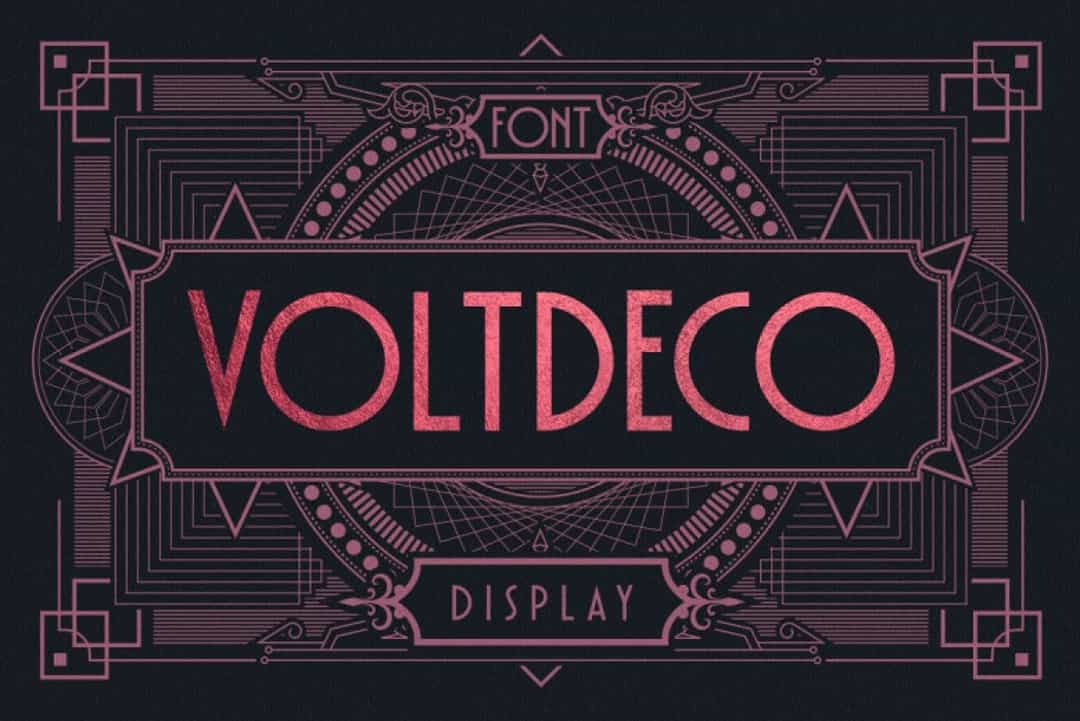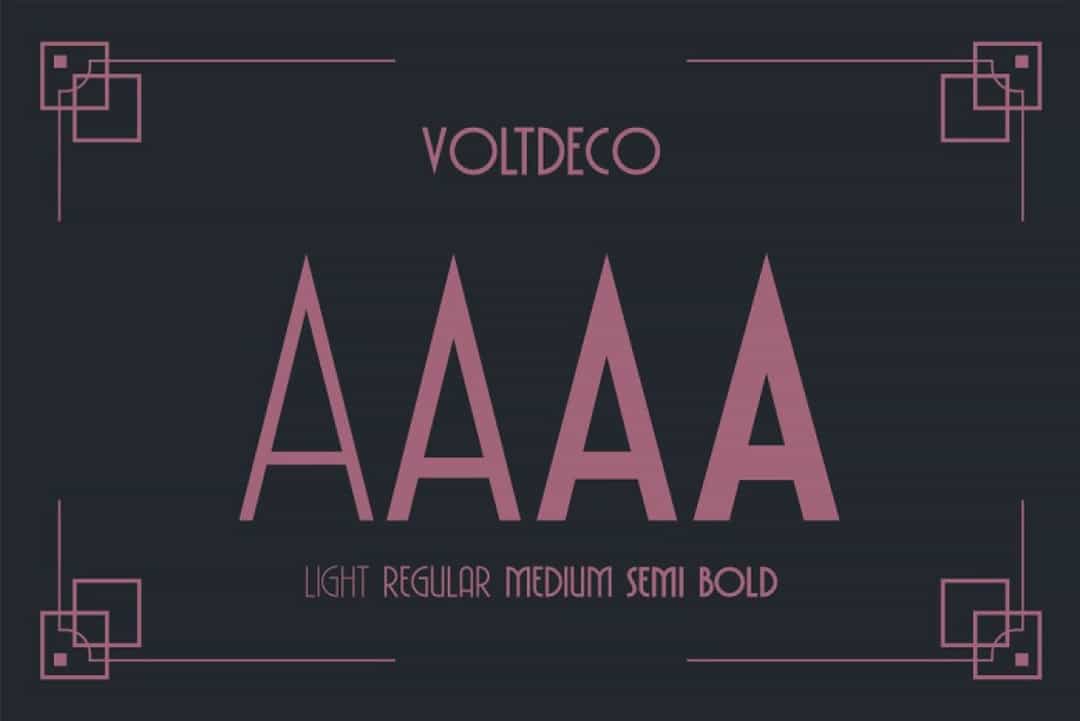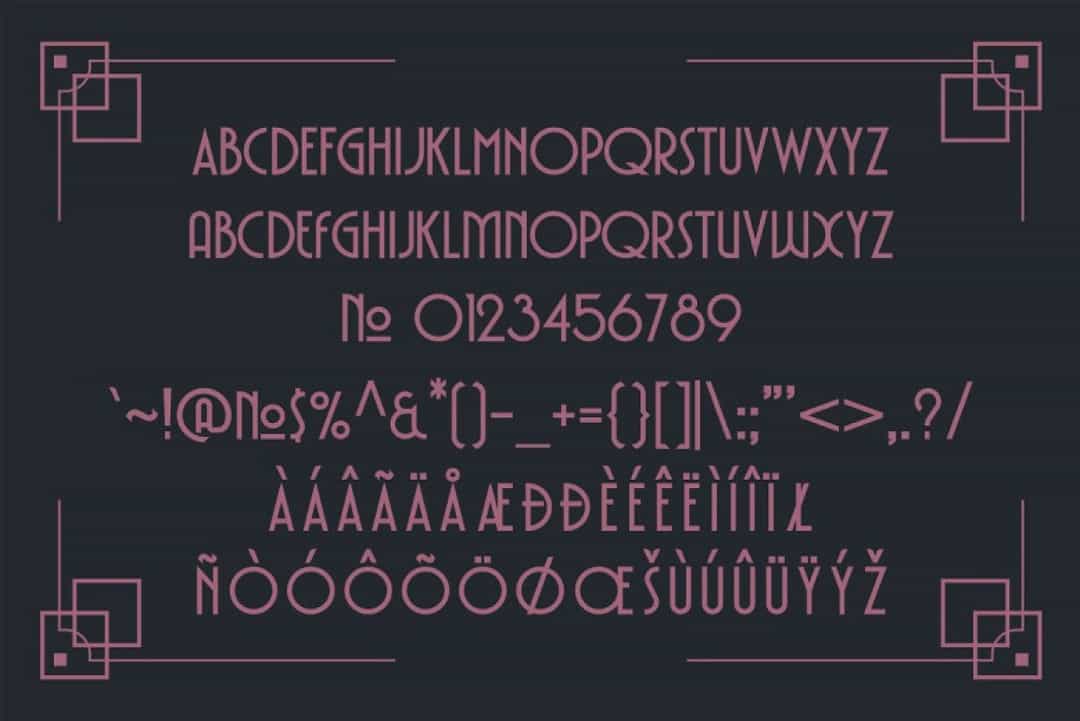
Voltdeco Font is a modern sans serif display artdeco typeface. It can easily be matched to an incredibly large set of projects, so add it to your creative ideas and notice how it makes them stand out! This font is perfect for stickers, craft projects, shirts, svg designs, procreate designs, branding, blogs, logos, invitations and more!